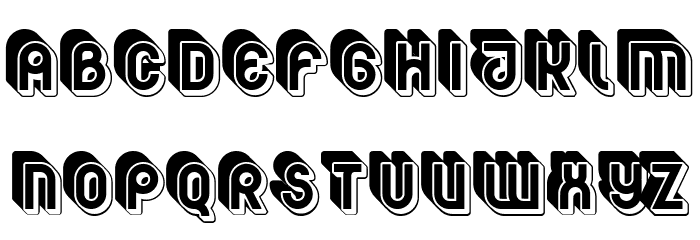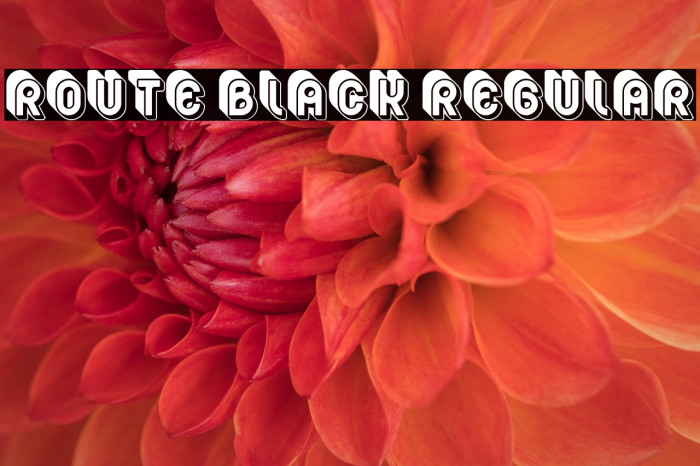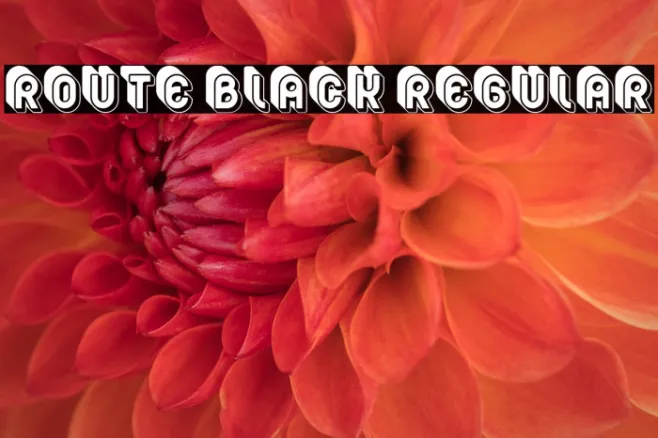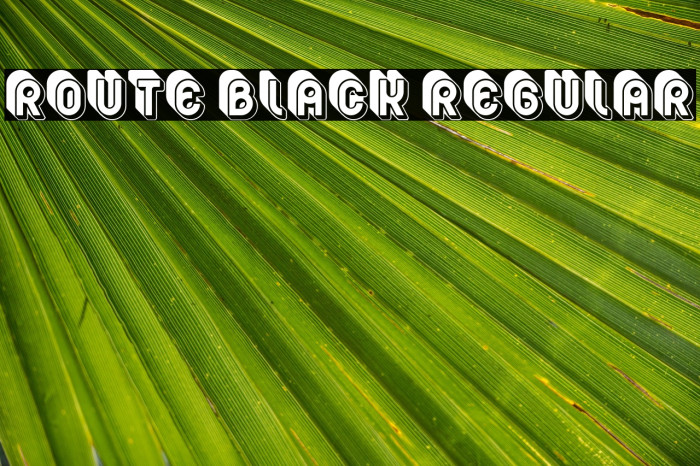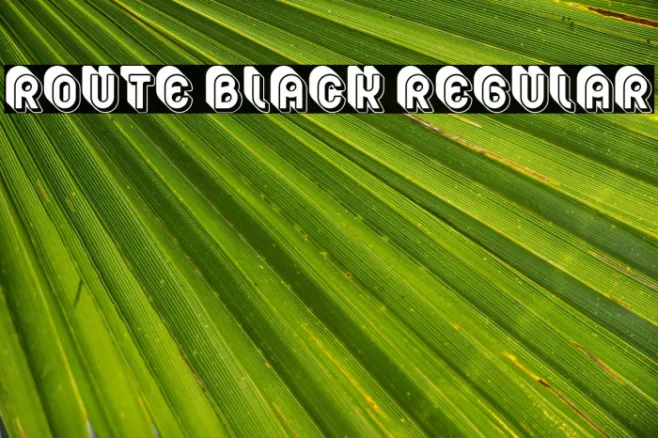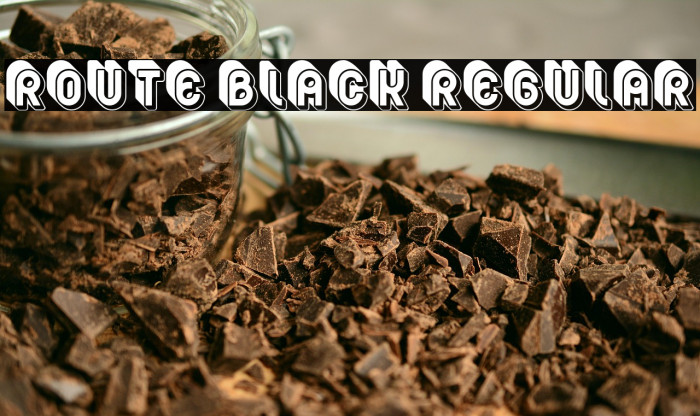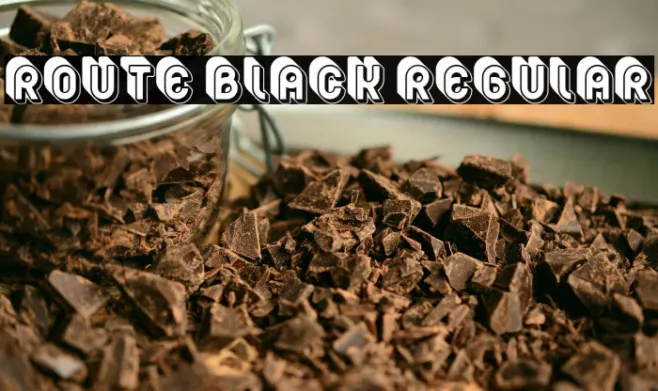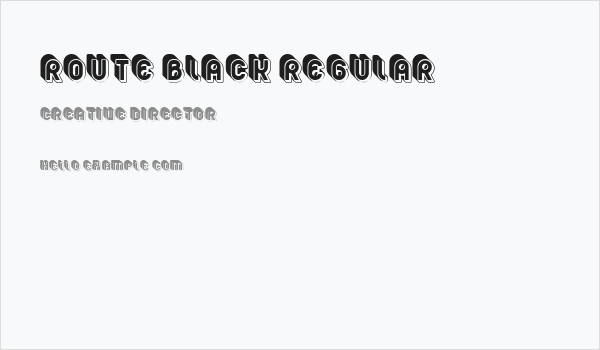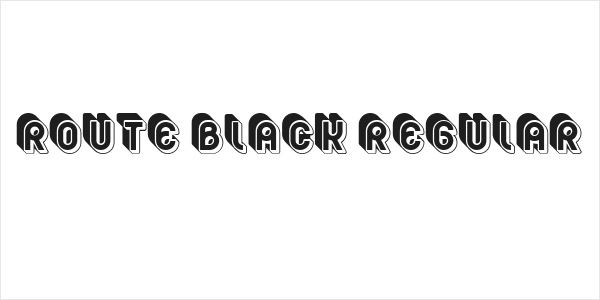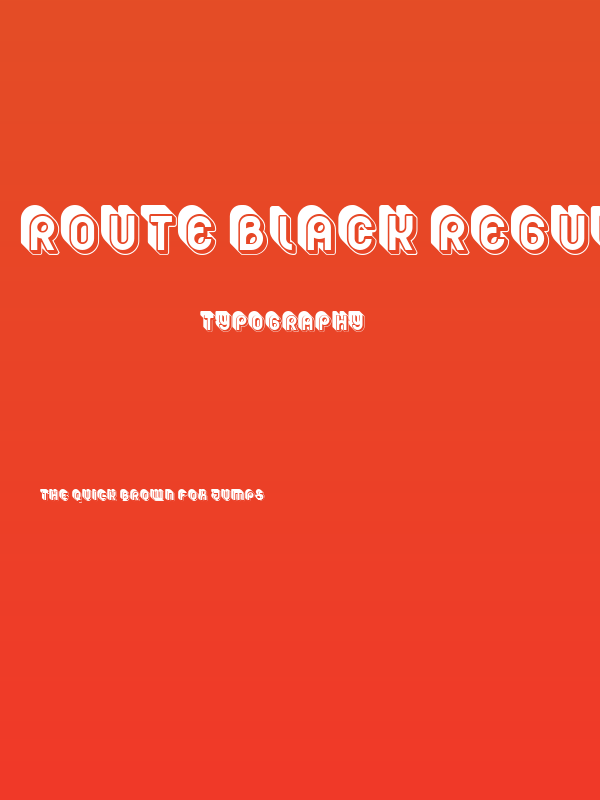
Route Black Regular Font
Route Black Regular Description
This font features a bold, three-dimensional style with a strong visual impact. The characters are outlined with a thick black border, creating a shadow effect that gives depth and dimension. The interior of each letter is filled with a solid color, enhancing the contrast between the outline and the fill. The design is geometric and structured, with consistent line thickness throughout. The overall appearance is modern and eye-catching, making it suitable for attention-grabbing headlines or logos. The font maintains a uniform width across characters, contributing to its balanced and cohesive look.